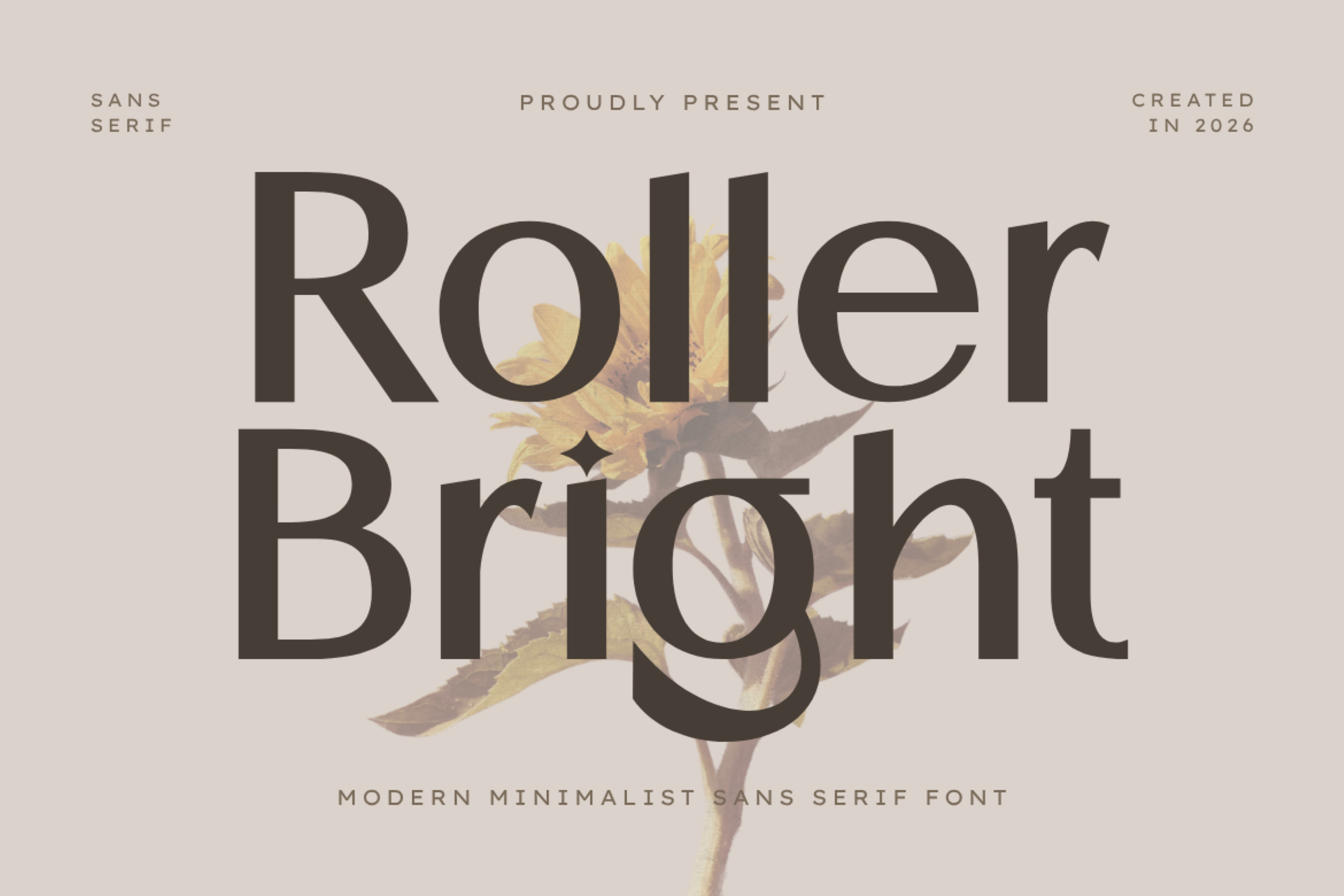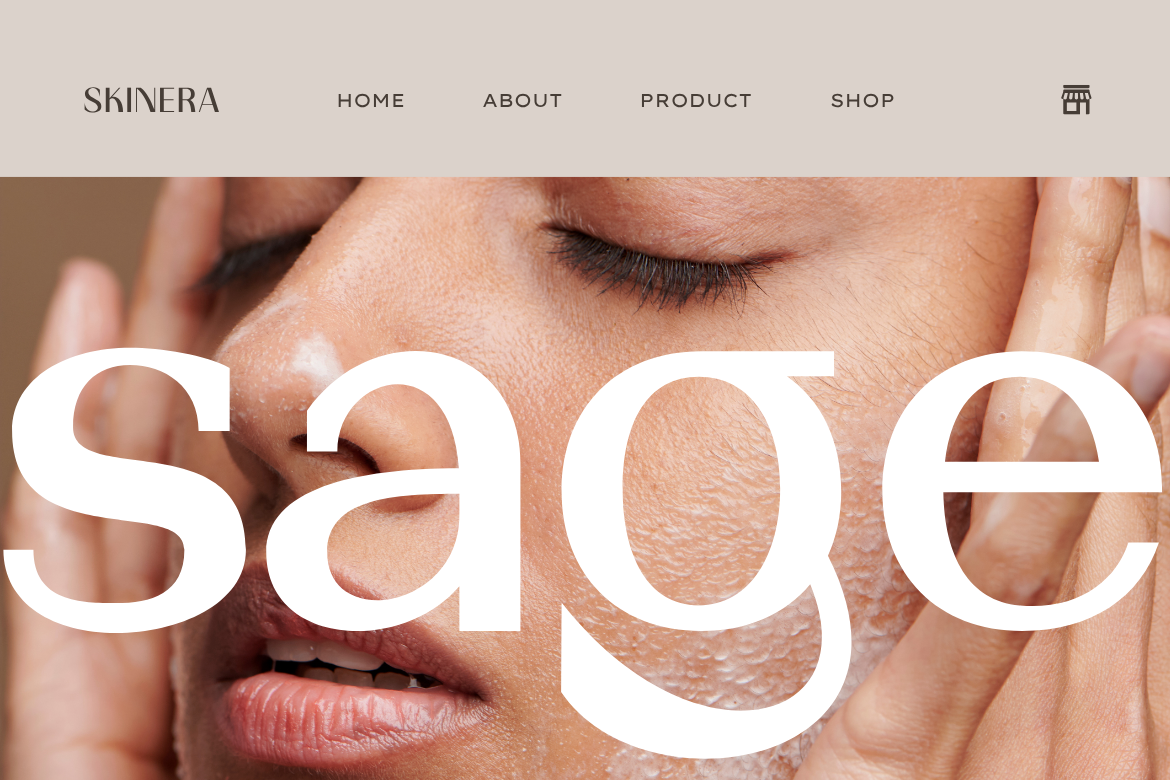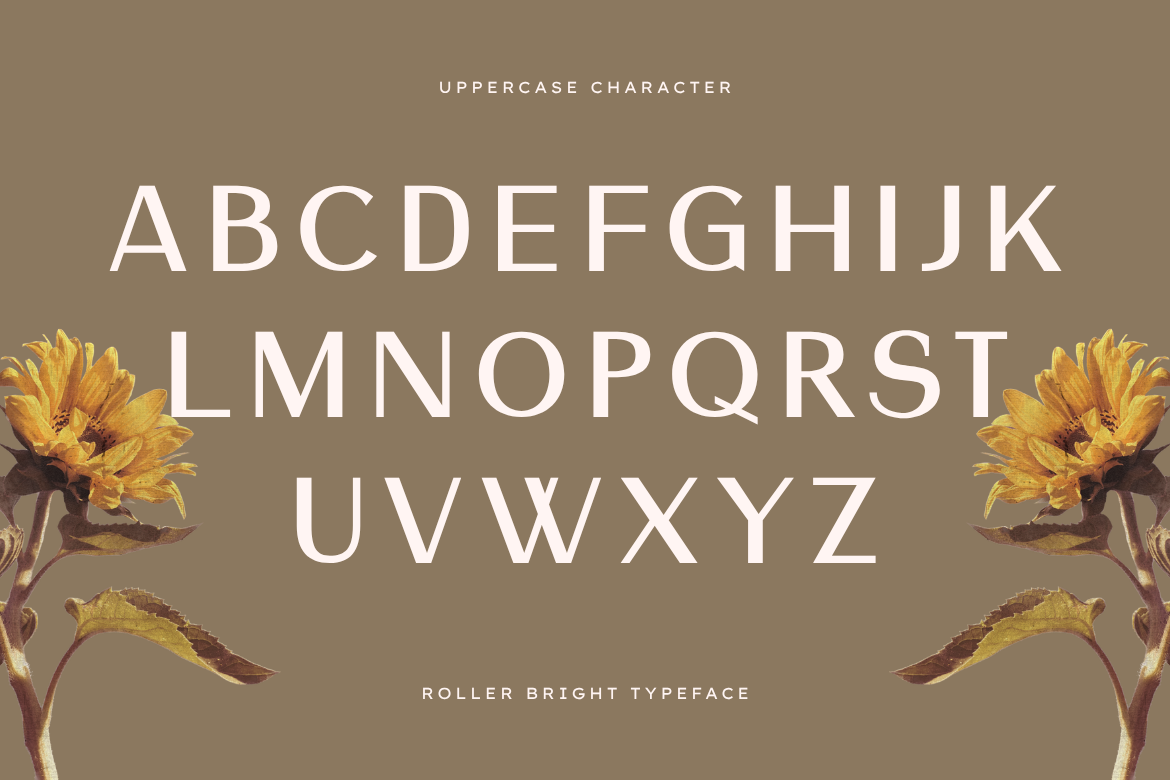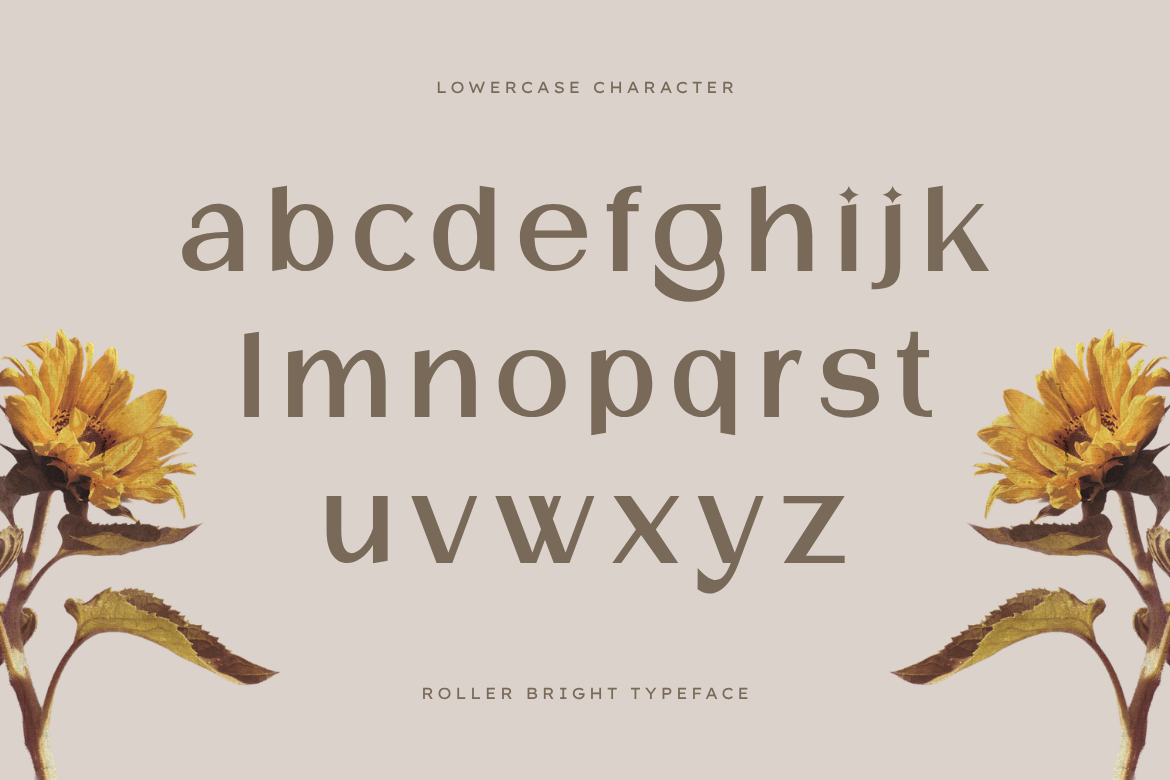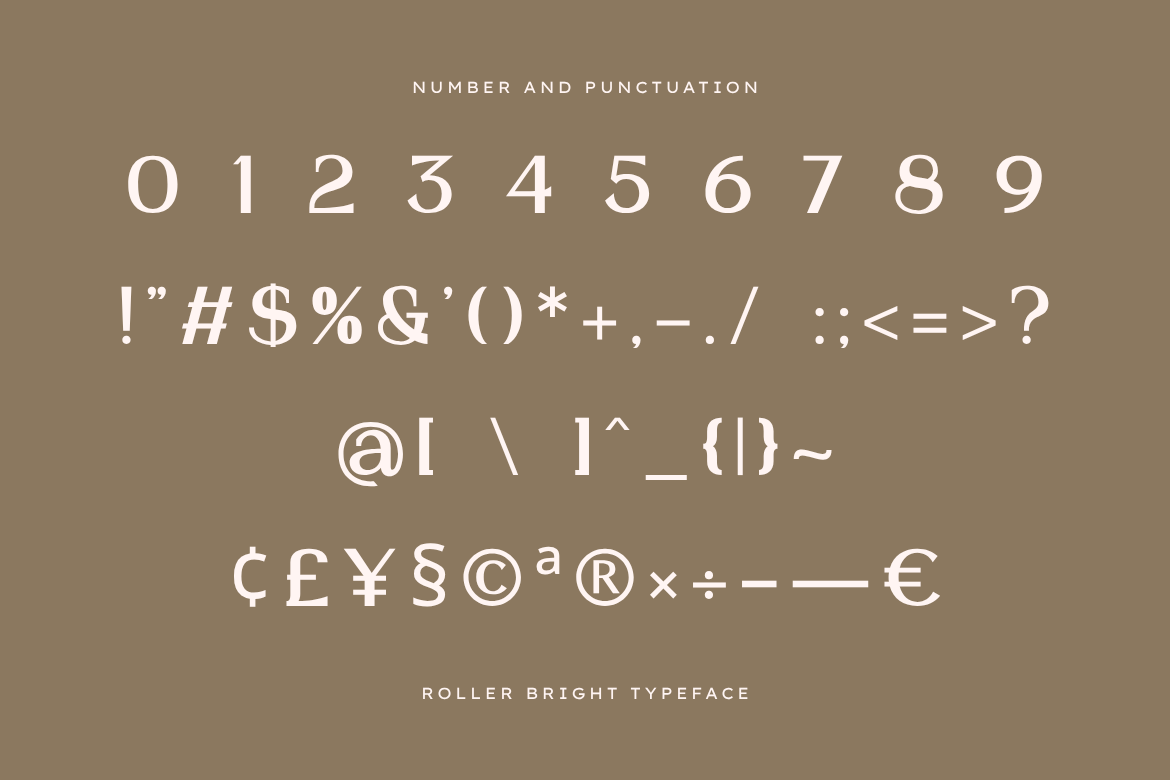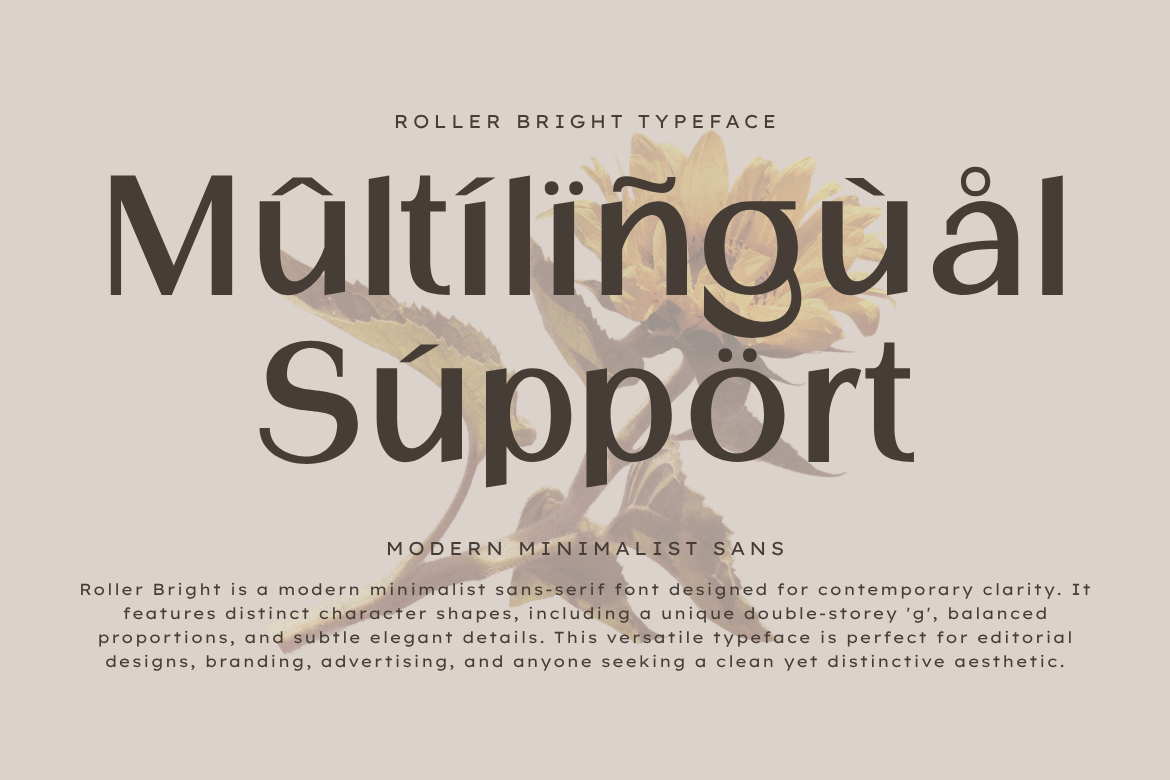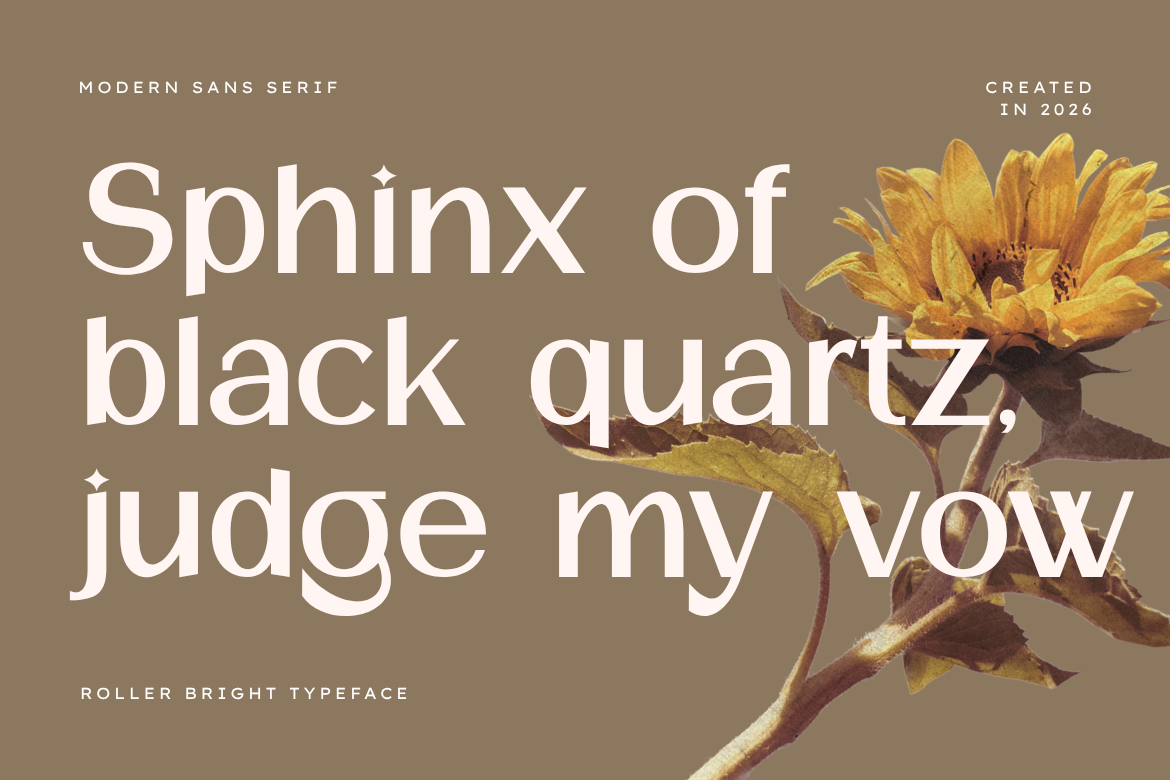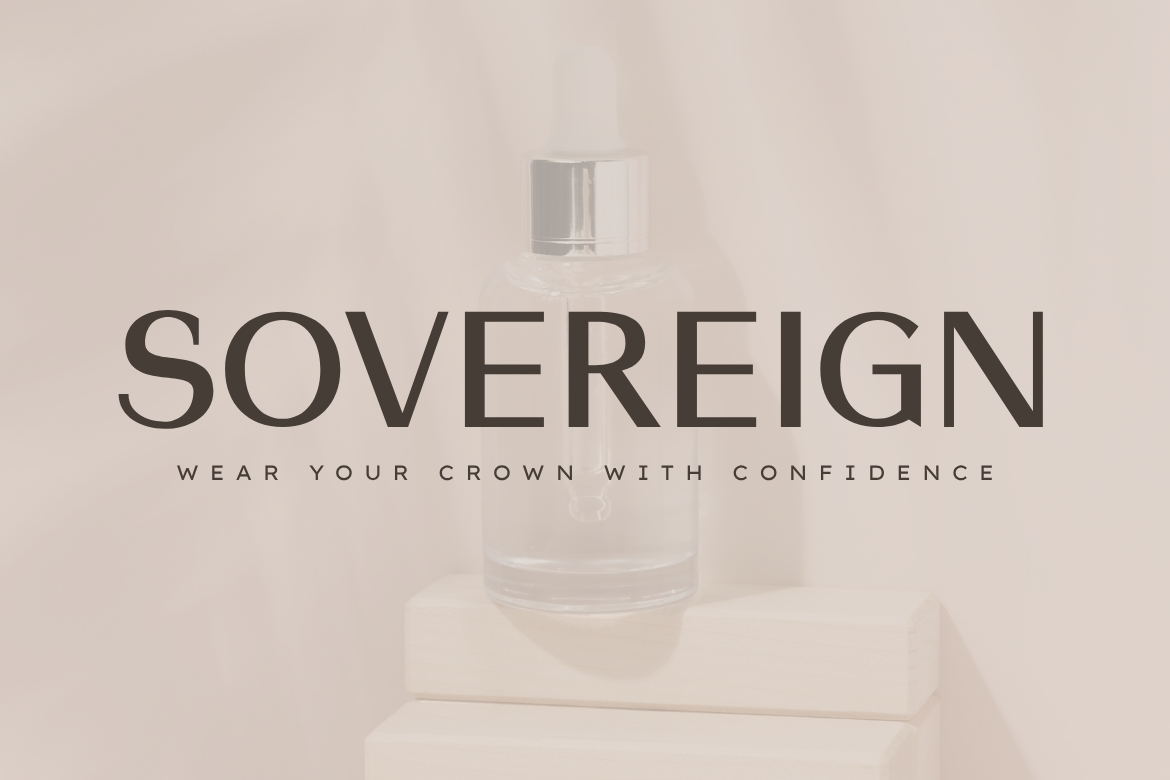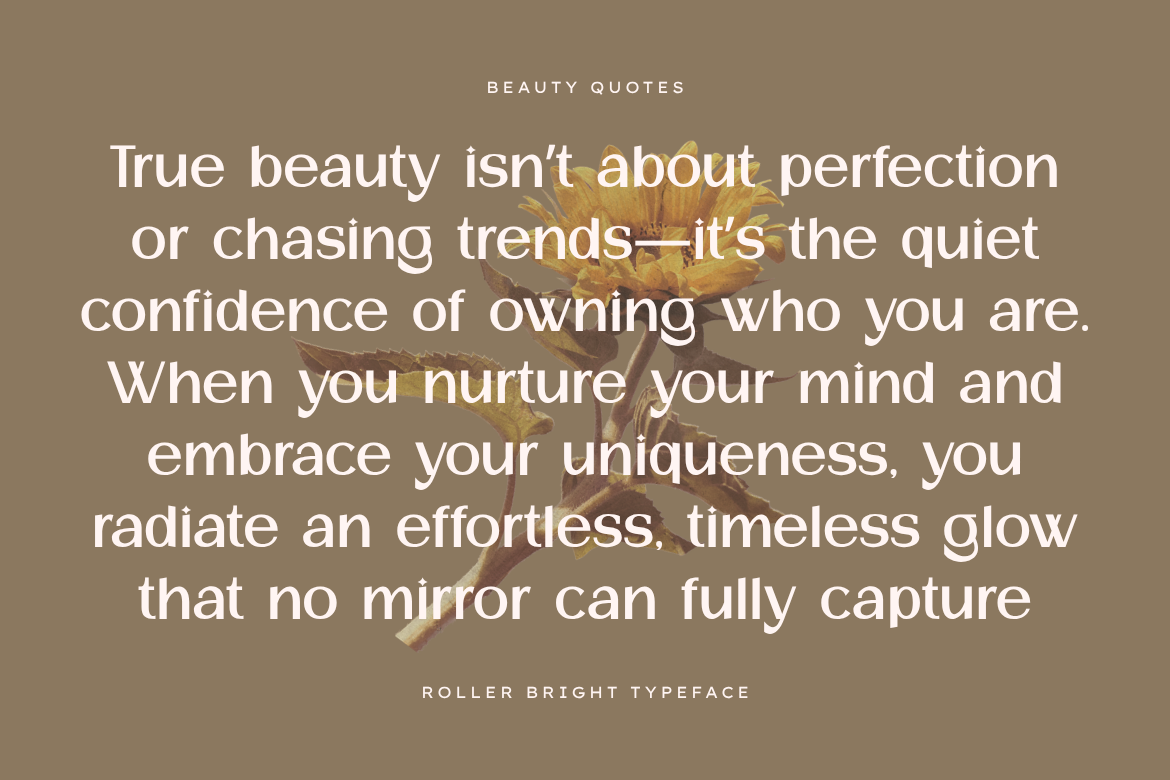
Roller Bright - Modern Minimalist Sans Serif Font
Roller Bright is a sophisticated modern sans serif font designed to bring timeless elegance and high-end professional style to your creative projects.
This typeface features beautifully balanced letterforms with clean lines and refined minimalist architecture, making it exceptionally versatile for luxury visual identities. Its sleek structure and high-impact design ensure that each character flows with grace, delivering a polished look that perfectly captures the essence of contemporary simplicity and editorial sophistication.
Whether you are crafting a brand identity for a premium startup, designing sleek corporate materials, or creating layouts for lifestyle, fashion, and botanical magazines, Roller Bright ensures your work exudes professionalism and style. It is ideal for logos, luxury packaging, websites, and high-end promotional presentations.
Designed for modern creative applications, Roller Bright empowers you to communicate a polished, upscale aesthetic that leaves a lasting impression across both print and digital platforms.
Main Features:
• Modern, minimalist, and sophisticated sans serif style.
• Refined, clean letterforms with professional finishing.
• Perfect for high-end branding, luxury logos, and editorial design.
• Designed for maximum visual impact in headlines and display use.
• Multilingual support.